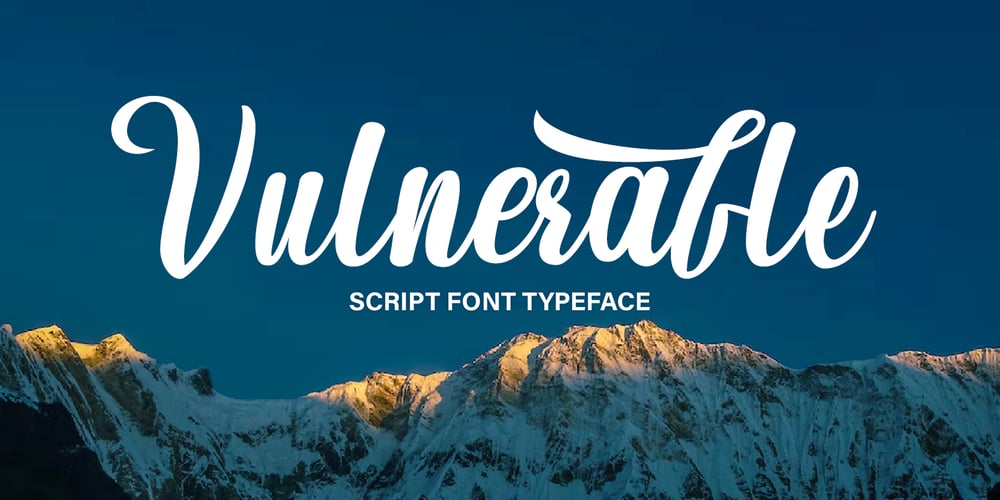
Vulnerable Font Family was designed by Yusliana M Isa and published by Gian Studio. Vulnerable contains 1 styles and family package options. Vulnerable is an elegant script typeface inspired by a vintage type specimen I found some time ago at an art fair. Thin to thick contrasting lines and elegant curves make Beginta the perfect font for this type of logo and display purposes.Hope you enjoy itFeel free to contact me if you have any questions or concerns you may have and I will get back to you as soon as I can.